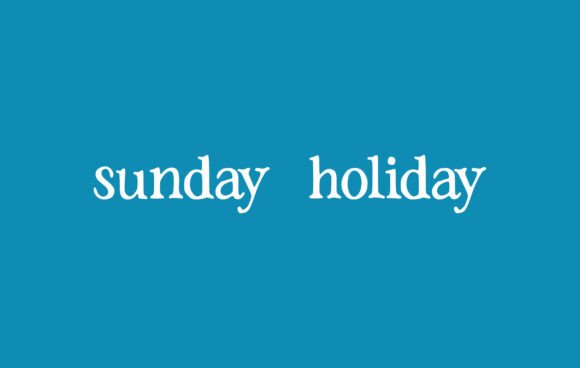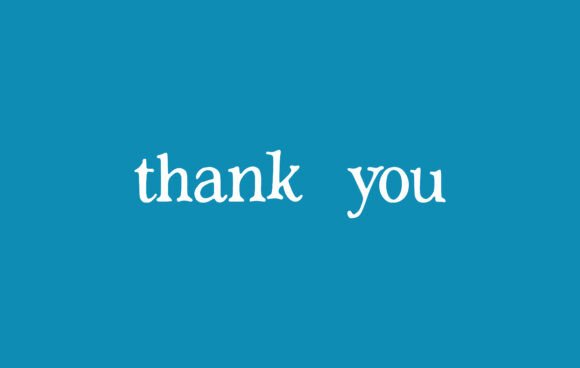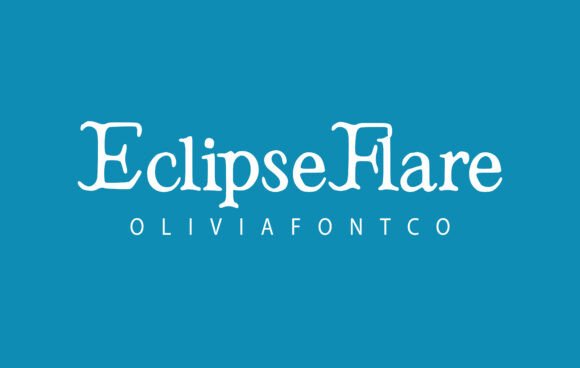
Eclipseflare Font: Elevate Your Design with Elegance and Strength
In the world of typography, fonts play a crucial role in conveying the tone and personality of a brand or design. For designers and crafters seeking a refined and sophisticated look, Eclipseflare Font is an excellent choice. This elegant serif font strikes a perfect balance between elegance and strength, making it ideal for various design applications.
The Characteristics of Eclipseflare Font
Eclipseflare Font boasts a distinctive design, characterized by its gentle contrast and flared terminals. These features lend a sense of refinement and luxury to any design, making it perfect for:
- Branding: Create a lasting impression with Eclipseflare Font’s elegant and sophisticated look, ideal for high-end brands and luxury products.
- Editorial Work: Add a touch of elegance to your publications, such as magazines, newspapers, and books, with Eclipseflare Font’s refined serif design.
- Upscale Packaging: Elevate your packaging design with Eclipseflare Font’s luxurious feel, perfect for premium products and high-end packaging.
What Sets Eclipseflare Font Apart
Eclipseflare Font’s unique design elements set it apart from other serif fonts. Its:
- Gentle Contrast: Provides a subtle yet sophisticated look, making it easy to read and visually appealing.
- Flared Terminals: Add a touch of elegance and refinement, giving your design a luxurious feel.
- Serif Design: Offers a classic and timeless look, perfect for designs that require a sense of tradition and sophistication.
Why Choose Eclipseflare Font?
As a designer or crafter, you understand the importance of selecting the right font for your project. Here are some compelling reasons to choose Eclipseflare Font:
- Versatility: Eclipseflare Font is suitable for a wide range of design applications, from branding and editorial work to packaging and advertising.
- Elegance: Its refined serif design and gentle contrast make it perfect for designs that require a touch of luxury and sophistication.
- Readability: Eclipseflare Font’s clear and legible design ensures that your message is conveyed effectively, making it easy for readers to engage with your content.
Tips for Using Eclipseflare Font Effectively
To get the most out of Eclipseflare Font, consider the following tips:
- Pair with complementary fonts: Combine Eclipseflare Font with sans-serif fonts or script fonts to create a visually appealing contrast.
- Use varying font sizes: Experiment with different font sizes to create a clear hierarchy and emphasize important information.
- Adjust line spacing: Optimize line spacing to ensure that your text is easy to read and visually appealing.
Eclipseflare Font is a refined serif font that brings a gentle contrast between elegance and strength. Its unique design elements, versatility, and readability make it an excellent choice for designers and crafters seeking to elevate their designs. Whether you’re working on branding, editorial work, or upscale packaging, Eclipseflare Font is sure to impress. With its luxurious feel and sophisticated look, this font is poised to become a staple in your typography collection.